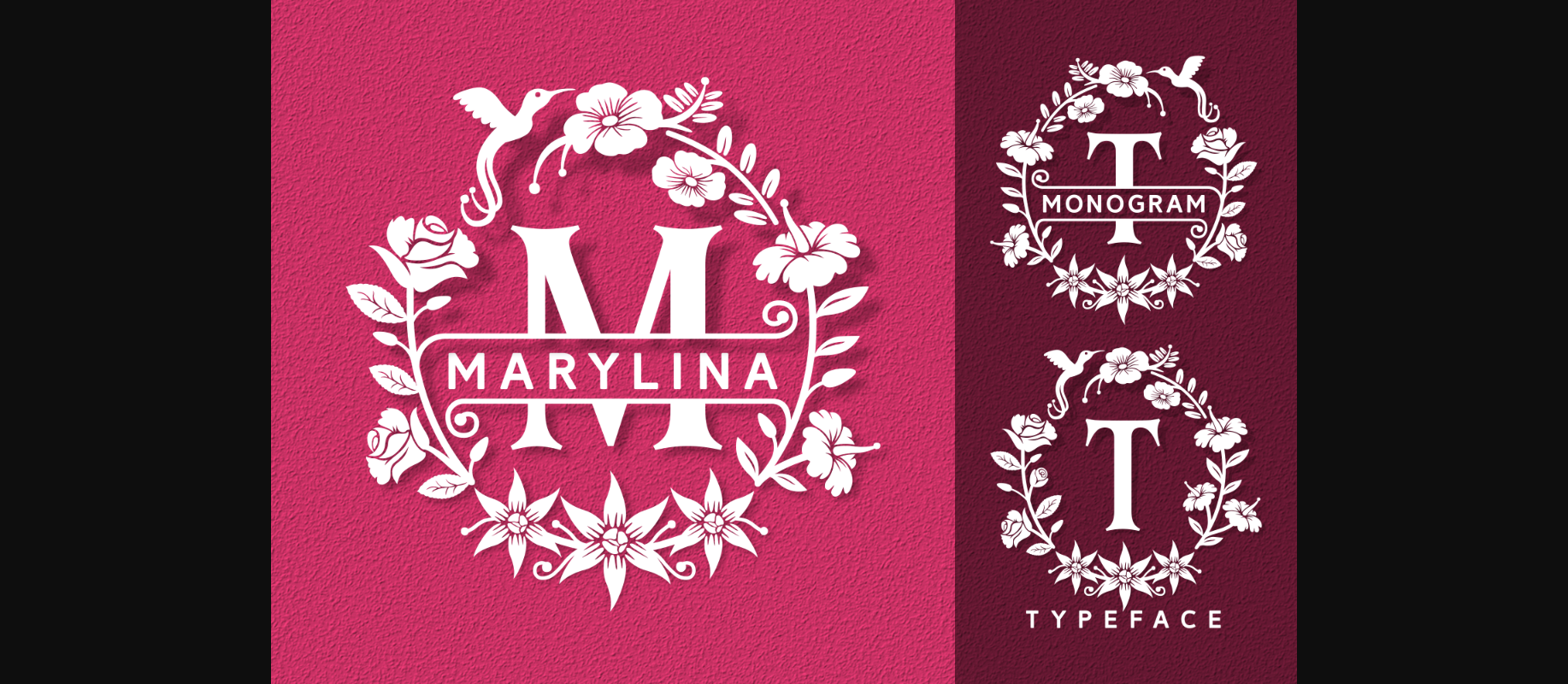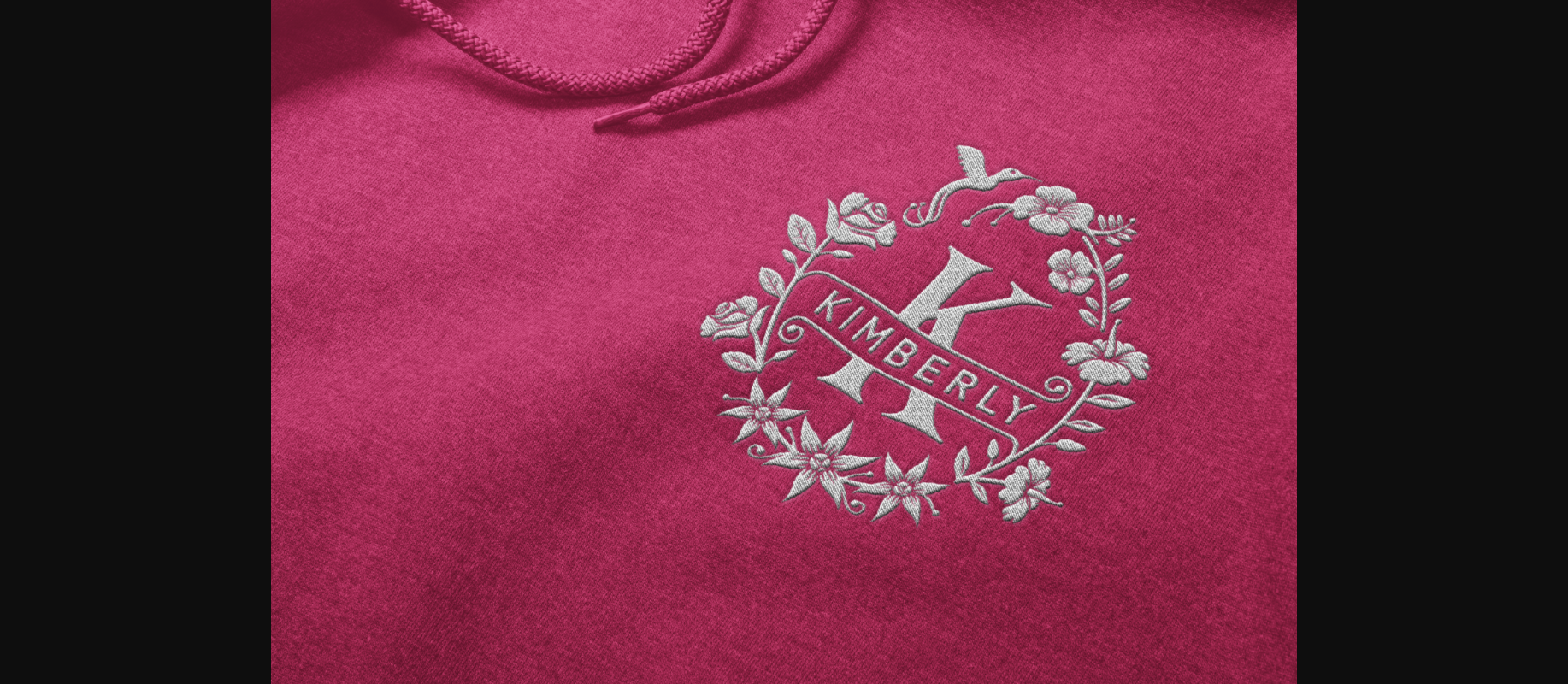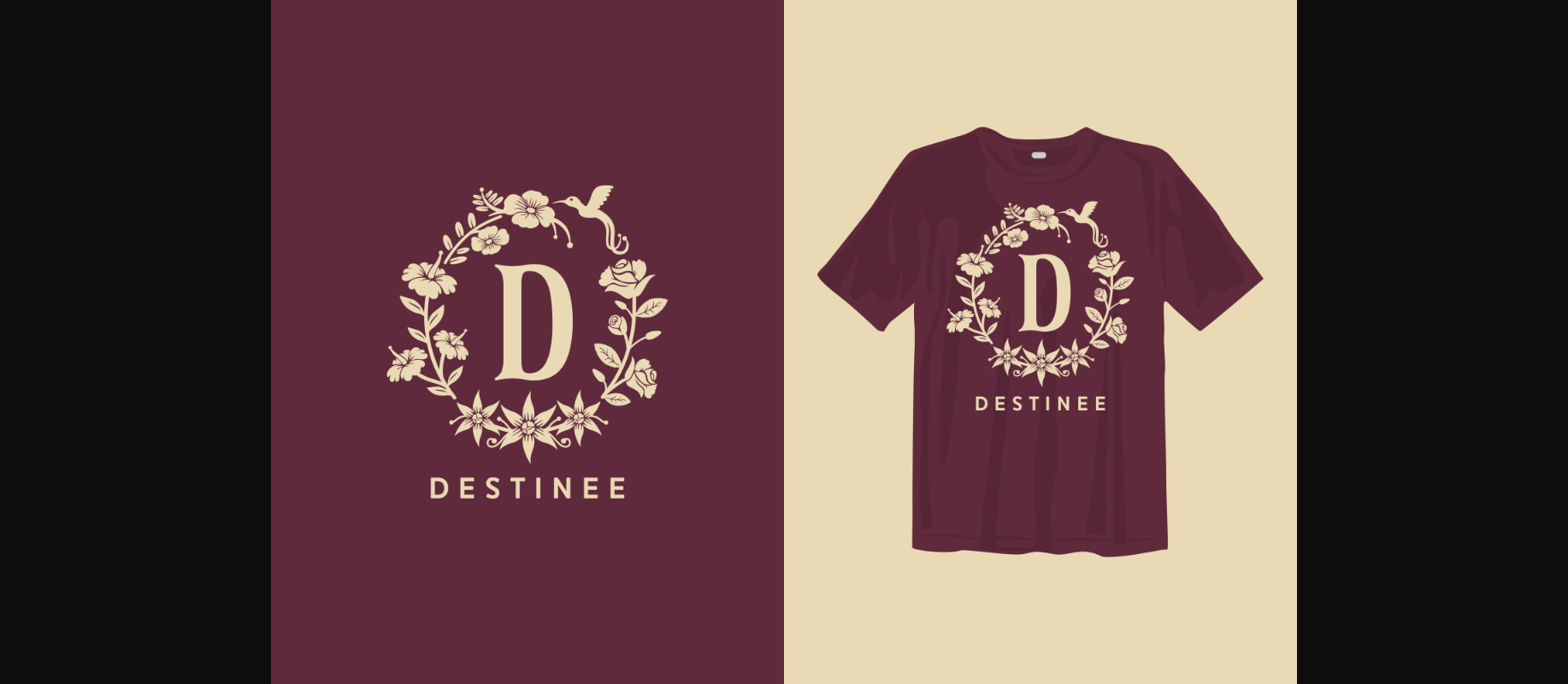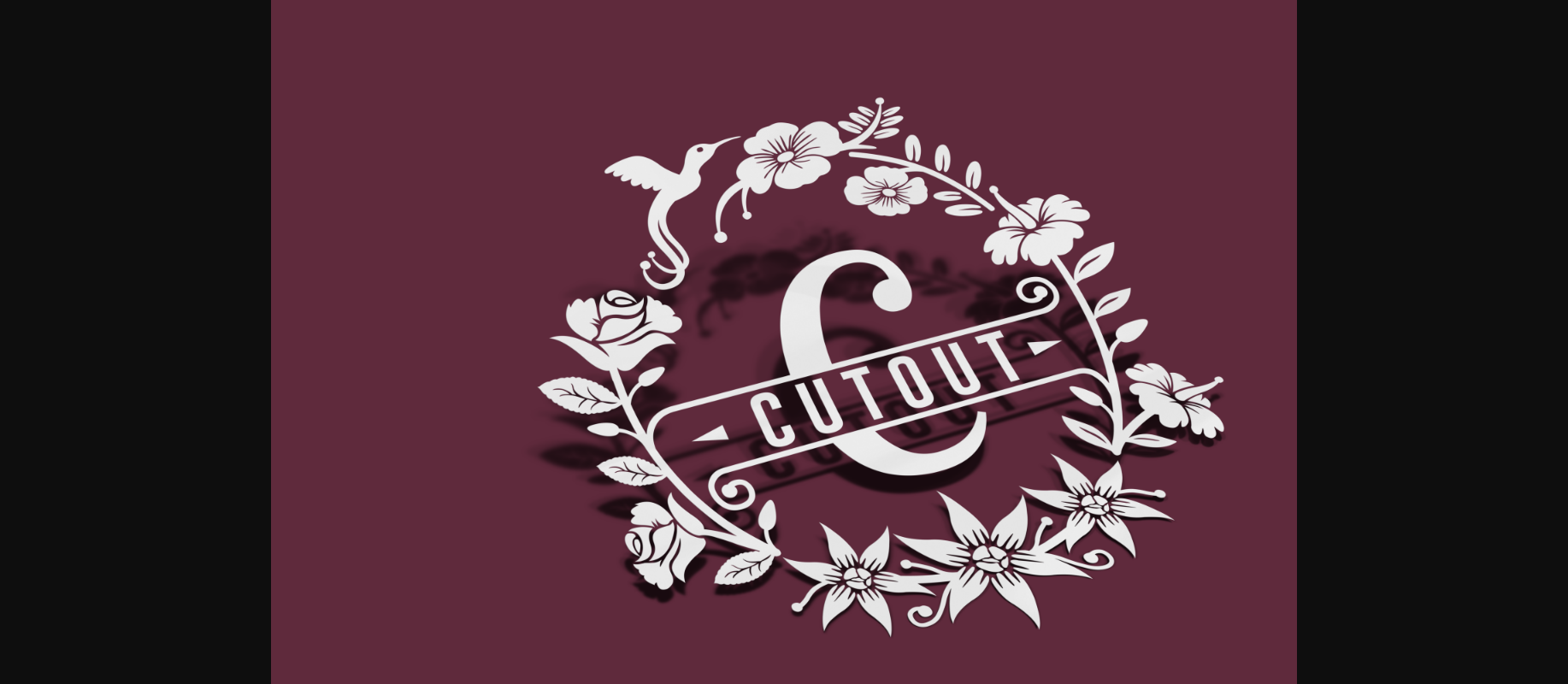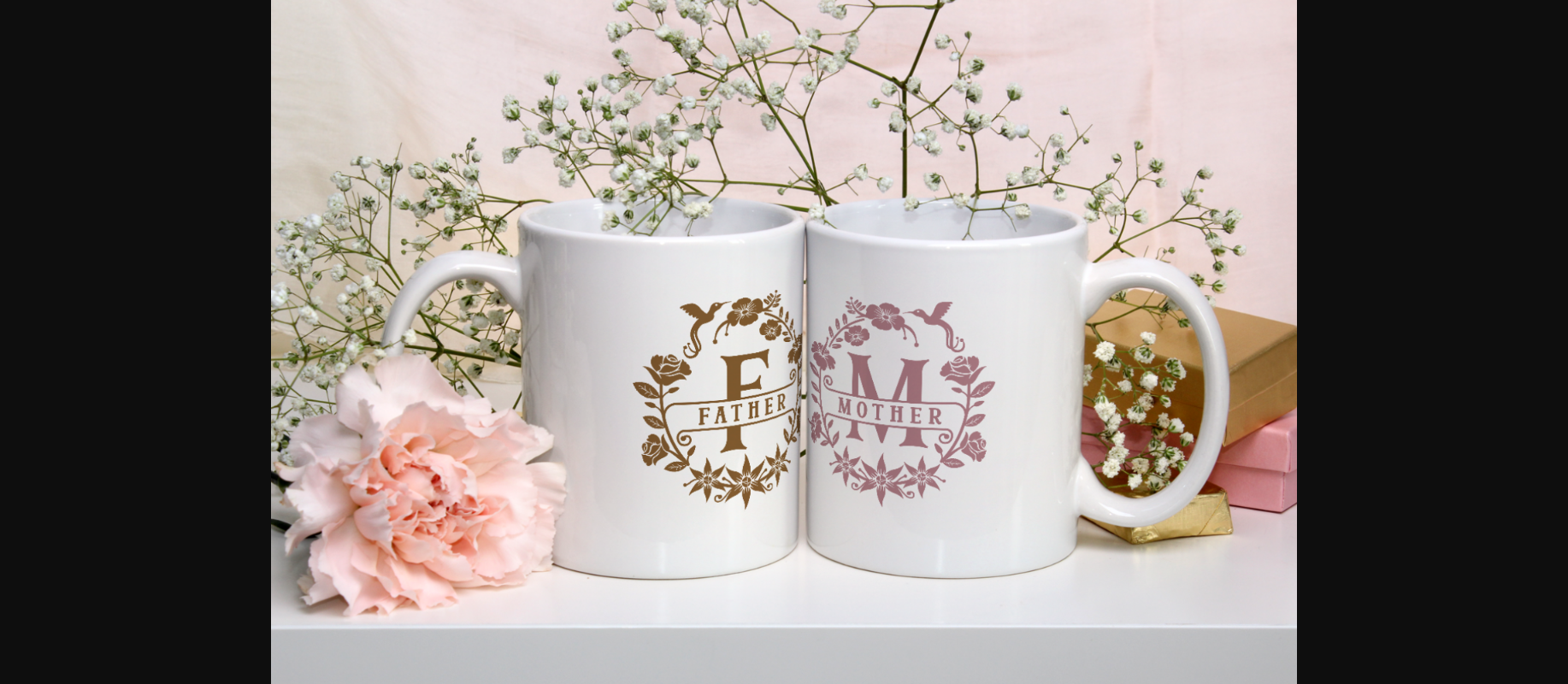
About Marylina Font
Marylina is a dainty and highly detailed decorative font. Add this romantic and lovely looking font to each of your love letters, wedding invitations or favorite design ideas, and you will be astounded by the outcome. Marylina is PUA encoded which means you can access all of the glyphs and swashes with ease!